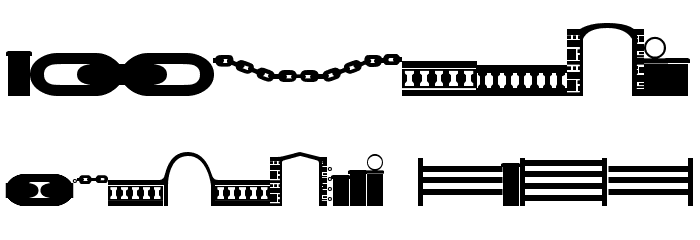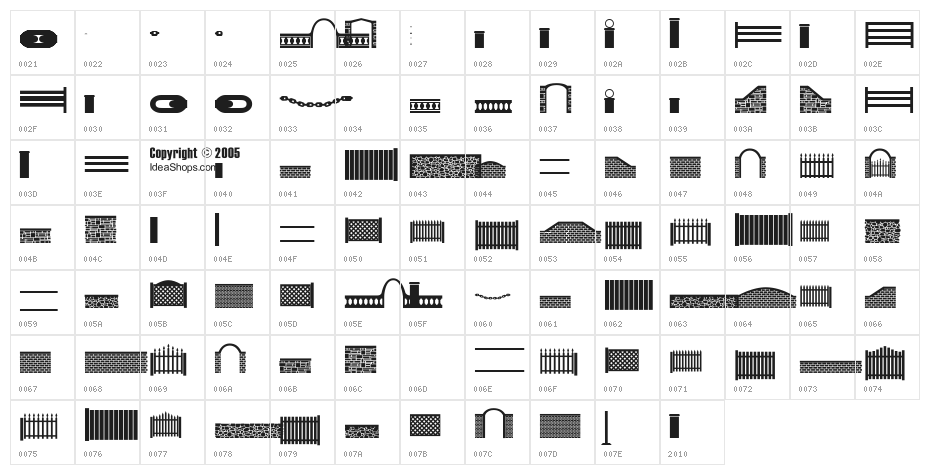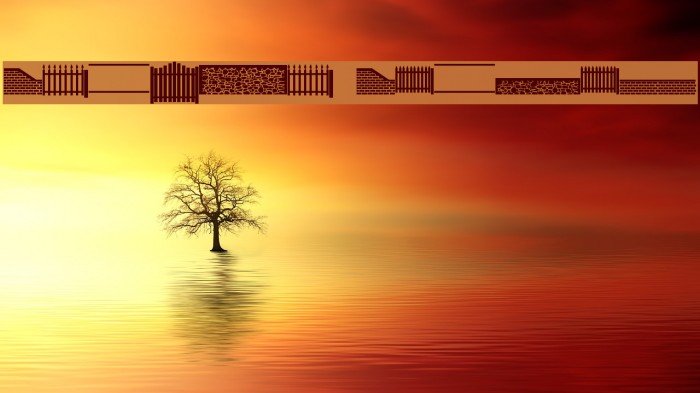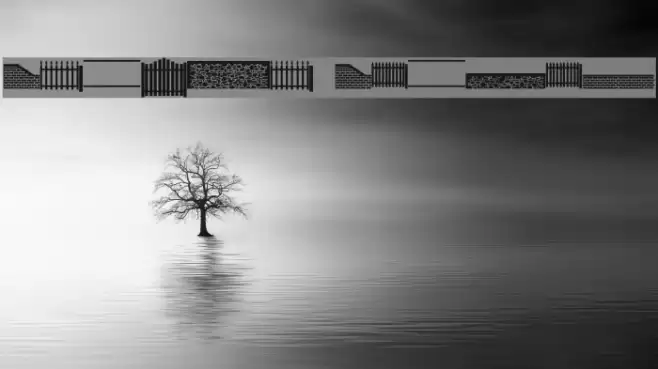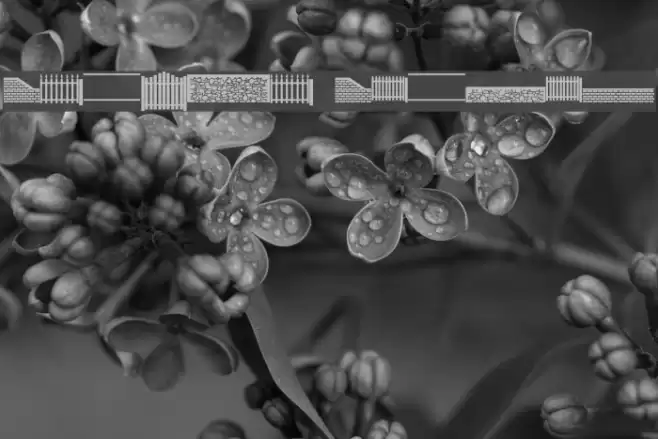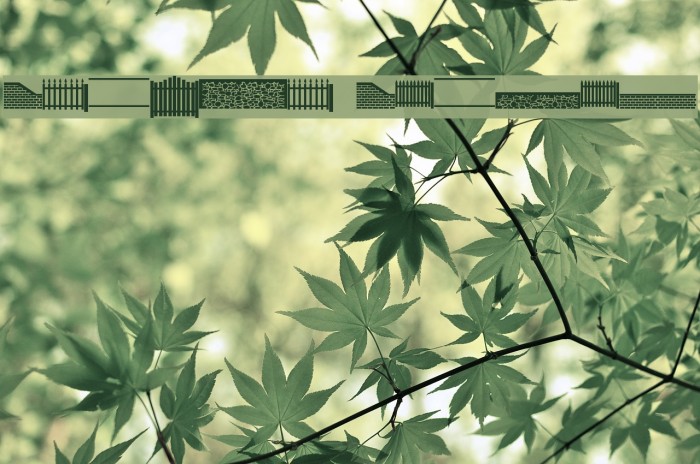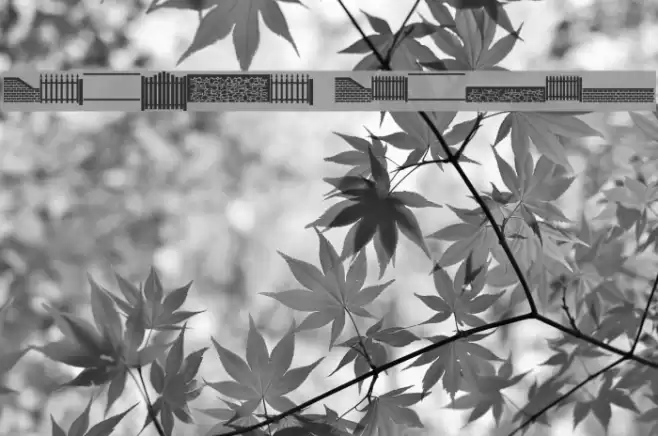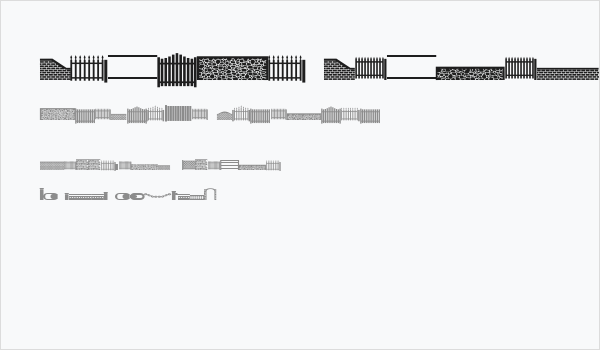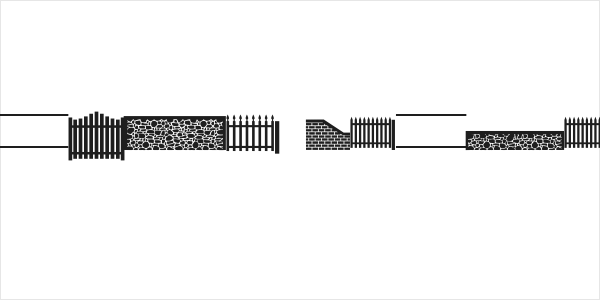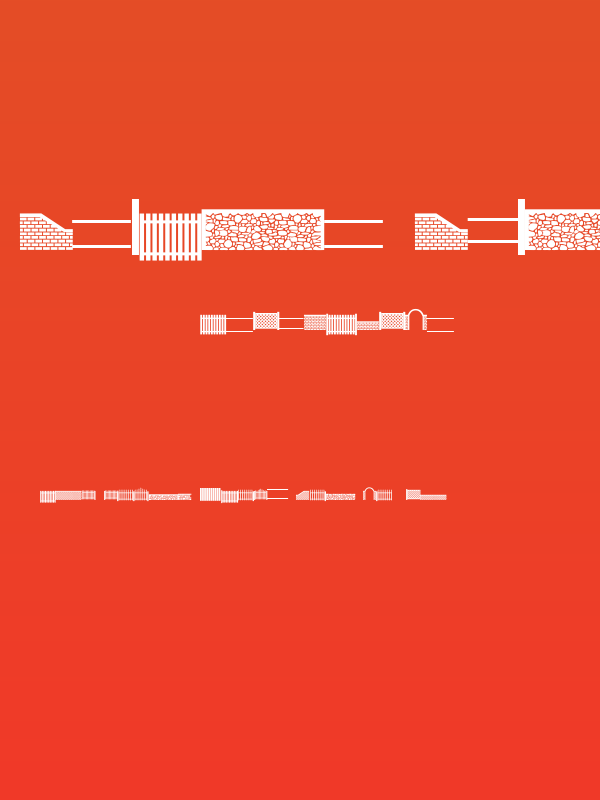
FontCo Fences Font
FontCo Fences Description
A highly decorative and illustrative font where each character is represented by a unique fence or barrier design, incorporating elements like bricks, chains, gates, and posts. The glyphs are complex, detailed, and visually distinct, evoking architectural and structural motifs.
| Overall Style | Decorative, Illustrative, Playful |
| Use Case | Logos, Headlines, Themed graphics, Posters |
| Proposed Projects | Ideal for themed posters, event invitations, signage for parks or construction, childrenΓ’β¬β’s books, or branding for security or landscaping businesses. |